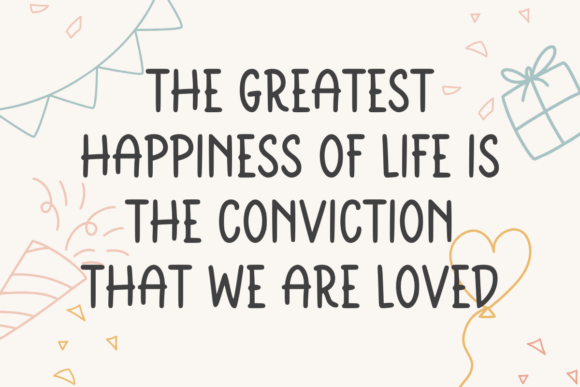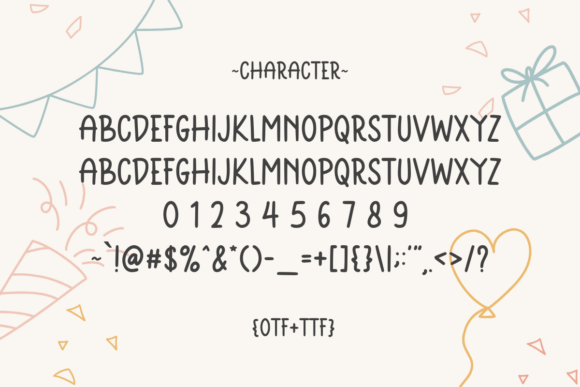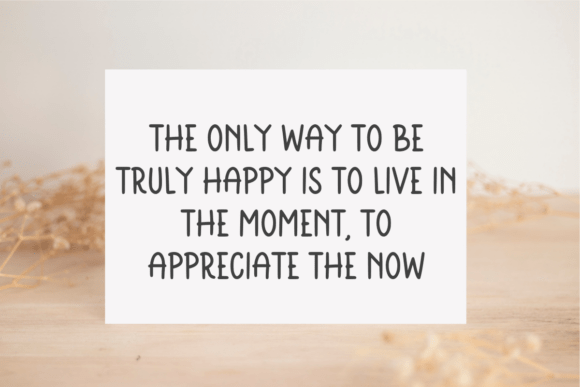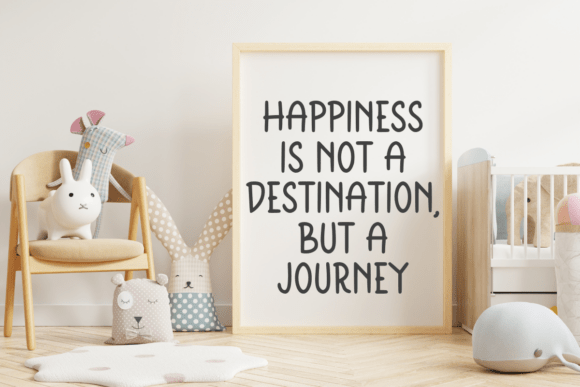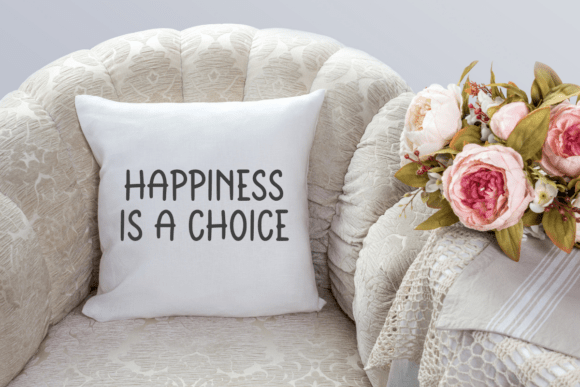
Introducing Happy Faces Font: The Perfect Playful Handwritten Font for Crafters and Designers
Are you a crafter, designer, or maker looking for a font that can add a touch of playfulness and friendliness to your projects? Look no further than Happy Faces Font! This delightful handwritten font is perfect for a wide range of creative endeavors, from crafts and planners to KDP, stickers, greeting cards, and more.
What Makes Happy Faces Font So Special?
Happy Faces Font is a unique and charming font that is sure to bring a smile to anyone’s face. Its cute and friendly style makes it an ideal choice for crafters, designers, and makers who want to add a personal touch to their projects. Whether you’re creating DIY crafts, designing stickers, or working on a KDP project, Happy Faces Font is the perfect choice.
Perfect for Cricut, Sublimation, and Creative DIY Projects
One of the best things about Happy Faces Font is its versatility. It works great with Cricut machines, making it perfect for cutting vinyl, iron-on designs, and other materials. It’s also ideal for sublimation projects, such as customizing mugs, tumblers, and other items. Additionally, Happy Faces Font is perfect for a wide range of creative DIY projects, from handmade cards and gift tags to personalized planners and journals.
Why Happy Faces Font is Ideal for Crafters, Designers, and Makers
Happy Faces Font is designed with crafters, designers, and makers in mind. Its playful and friendly style makes it perfect for creating a wide range of projects, from cute and quirky crafts to professional-looking designs. Here are just a few reasons why Happy Faces Font is ideal for crafters, designers, and makers:
- Easy to read: Happy Faces Font is clear and easy to read, making it perfect for creating projects that require text, such as signs, banners, and cards.
- Versatile: Happy Faces Font works great with a wide range of materials and projects, from paper crafts to vinyl and sublimation.
- Cute and friendly: Happy Faces Font has a playful and friendly style that’s sure to bring a smile to anyone’s face.
- Perfect for DIY projects: Happy Faces Font is ideal for DIY projects, such as handmade cards, gift tags, and personalized planners.
How to Use Happy Faces Font in Your Projects
- Pair it with other fonts: Happy Faces Font works great when paired with other fonts, such as bold and sans-serif fonts.
- Use it for titles and headings: Happy Faces Font is perfect for titles and headings, adding a touch of playfulness and friendliness to your projects.
- Add it to your planners and journals: Happy Faces Font is ideal for adding a personal touch to your planners and journals.
- Use it for stickers and labels: Happy Faces Font works great for creating stickers and labels, adding a cute and friendly touch to your projects.
Happy Faces Font is a playful and friendly handwritten font that’s perfect for crafters, designers, and makers. Its cute and friendly style makes it ideal for a wide range of creative endeavors, from crafts and planners to KDP, stickers, greeting cards, and more. With its versatility and ease of use, Happy Faces Font is sure to become a favorite in your design toolbox.